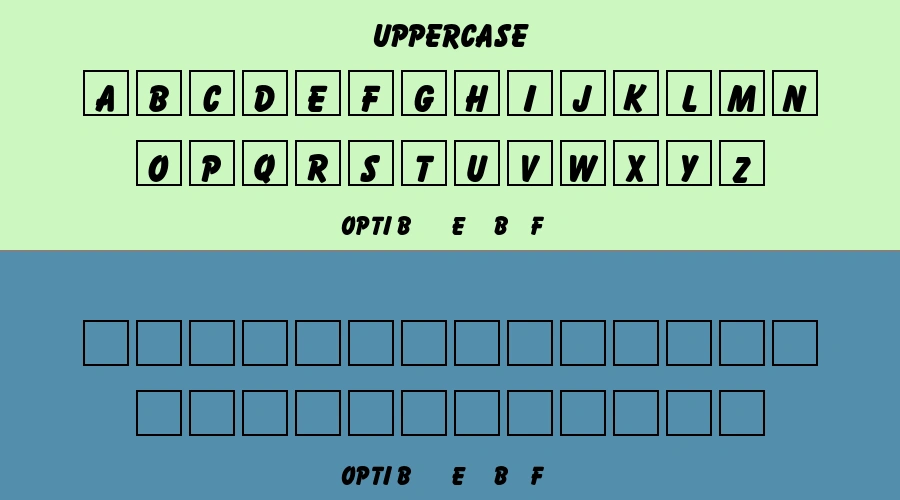
About OPTI Balloon Extra Bold Font
When typographic excellence matters most, OPTI Balloon Extra Bold Font delivers through its thoughtful blend of script connections and optical balance. Specially crafted for marketing materials, it offers the tradition and technical precision required for sophisticated design work. Every detail serves a purpose.
The character set showcases thoughtful details like architectural precision alongside functional text figures. This proves especially valuable in hero imagery, where microfilm readability directly influences results. Particular attention was paid to stroke contrast and standards alignment during development.